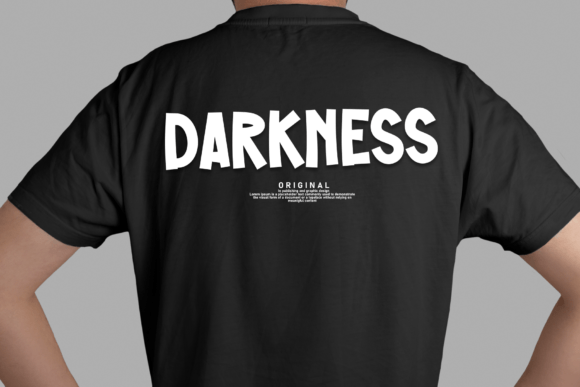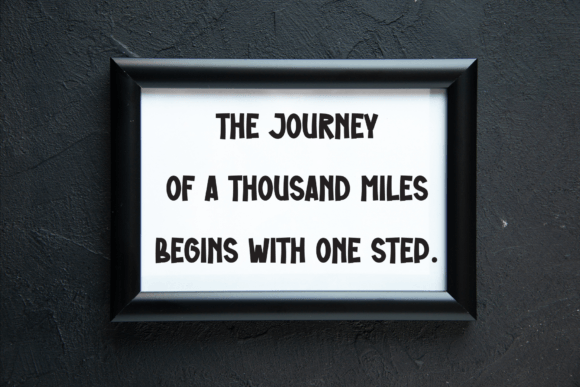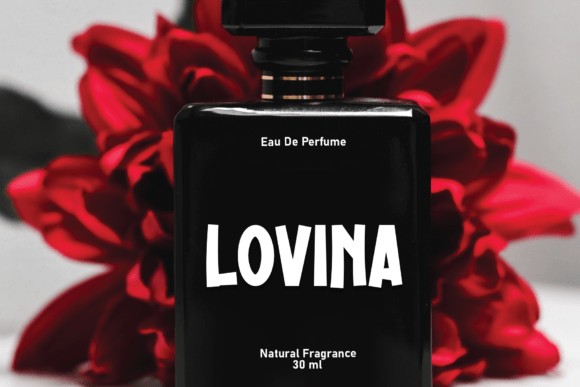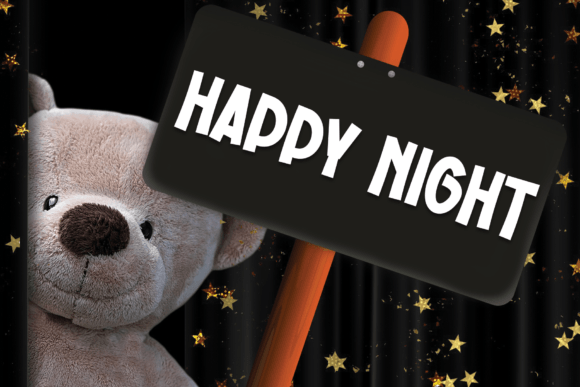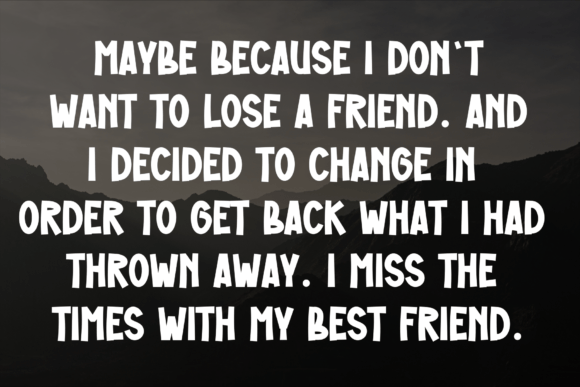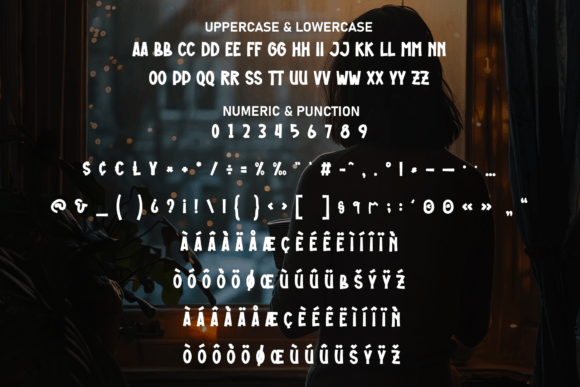
Introduction to Mood Night Font
Have you ever stared at a blank canvas, trying to spark a creative idea for your next project? The silence can be deafening, until suddenly, a burst of inspiration hits you. For designers, those ‘aha’ moments are what make the process worthwhile. And sometimes, all it takes is the right font to set the tone for your entire design. Enter the Mood Night Font, a bold display font that’s sure to grab attention and make a statement.
Designed with a strong, eye-catching style, Mood Night Font features thick, solid letters that demand to be noticed. Whether you’re working on a high-profile campaign or a personal creative project, this font is the perfect design resource to elevate your work. With its versatility and high-quality aesthetic, Mood Night Font is a valuable addition to any designer’s toolkit.
Key Features of Mood Night Font
- Unique, hand-drawn design for a creative project, offering a distinct aesthetic.
- Perfect for adding a touch of whimsy and personality to your design, from posters to digital art.
Honest Review: Mood Night Font
I recently stumbled upon the Mood Night Font while searching for a unique design resource to elevate my creative project. As a designer, I’m always on the lookout for high-quality fonts that can add an extra layer of depth to my work.
Here’s what I like about the Mood Night Font:
- ✨ The font has a beautiful, dreamy quality to it, making it perfect for designs that require a touch of whimsy.
- ✨ The transparent background option allows for seamless integration into various design backgrounds.
However, I do have a few concerns:
- ⚠️ The font’s size range is somewhat limited, which may require some adjustments to get the desired effect.
Overall, I’m impressed with the Mood Night Font and would definitely recommend it to designers looking for a unique and high-quality font to add to their design arsenal.
Mood Night Font
The Mood Night Font is a unique and versatile design resource perfect for adding a touch of elegance to your creative project. This high-quality font features a transparent background, making it easy to use in a variety of design applications.
For the best results, use the Mood Night Font in conjunction with a dark background to create a striking visual effect. Experiment with different font sizes and styles to add depth and interest to your design.
The Mood Night Font is perfect for a variety of design projects, including:
- Party and event invitations
Conclusion
The Mood Night Font is a free download that’s sure to elevate your creative project to the next level. With its high-quality design and transparent background, it’s the perfect design resource for any project.